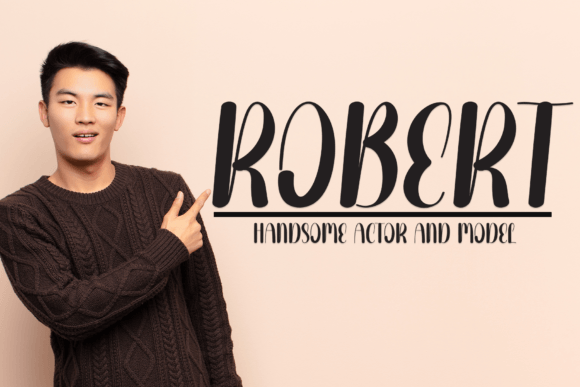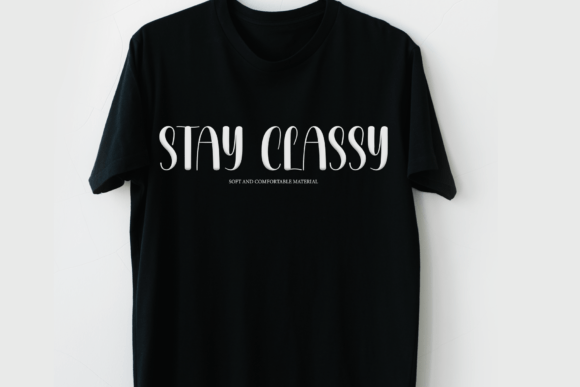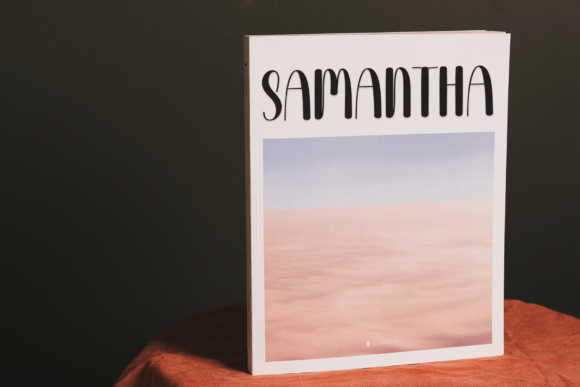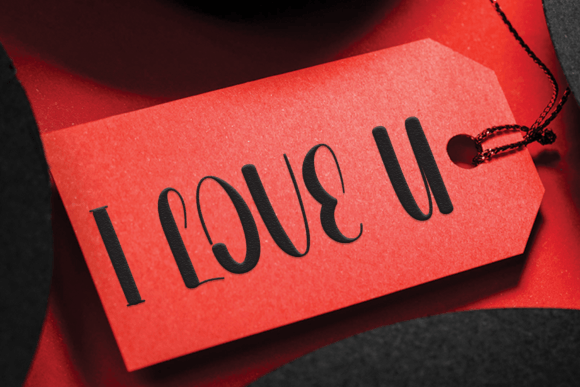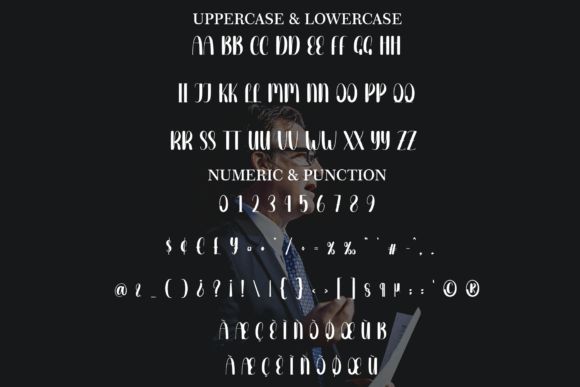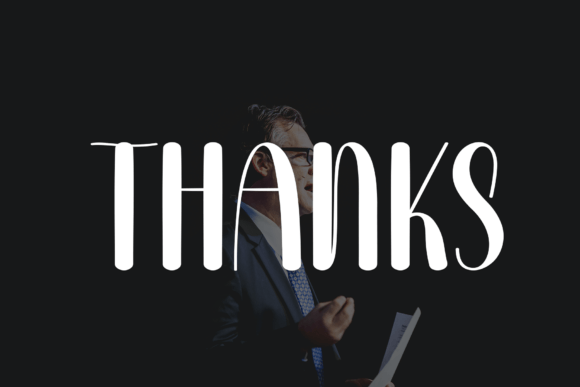
Introducing Black Easter Font: The Sweet and Friendly Handwritten Font for Your Design Needs
Are you looking for a font that can add a touch of sweetness and friendliness to your designs? Look no further than the Black Easter Font! This beautiful handwritten font is perfect for creating wedding invitations, cards, and other designs that require a lovely and personal touch.
What is Black Easter Font?
Black Easter is a sweet and friendly handwritten font that is designed to bring a sense of warmth and approachability to your designs. With its cute and fun style, this font is ideal for a variety of projects, from wedding invitations and cards to posters, flyers, and more.
Characteristics of Black Easter Font
So, what makes Black Easter Font so special? Here are some of its key characteristics:
- Handwritten style: Black Easter Font has a beautiful, handwritten style that gives it a personal and unique touch.
- Sweet and friendly: This font is designed to be sweet and friendly, making it perfect for designs that require a warm and approachable feel.
- Cute and fun: With its playful and fun style, Black Easter Font is ideal for designs that need to be engaging and eye-catching.
- Versatile: This font can be used for a wide range of projects, from wedding invitations and cards to posters, flyers, and more.
Uses for Black Easter Font
So, what can you use Black Easter Font for? Here are some ideas to get you started:
- Wedding invitations: This font is perfect for creating beautiful and elegant wedding invitations that will set the tone for your special day.
- Cards: Whether you’re creating birthday cards, thank-you cards, or get-well cards, Black Easter Font is a great choice.
- Posters and flyers: This font can be used to create eye-catching posters and flyers for events, promotions, and more.
- Social media graphics: Black Easter Font can be used to create engaging social media graphics, such as Facebook posts, Instagram stories, and more.
Why Choose Black Easter Font?
So, why should you choose Black Easter Font for your design needs? Here are some reasons:
- Unique and personal: This font has a unique and personal touch that will set your designs apart from the rest.
- Easy to read: Black Easter Font is easy to read, making it perfect for designs that require a clear and concise message.
- Customizable: This font can be customized to fit your design needs, including changing the color, size, and style.
- High-quality: Black Easter Font is a high-quality font that is designed to produce professional-looking results.
Tips for Using Black Easter Font
Here are some tips for using Black Easter Font:
- Use it with a clear and concise message: Black Easter Font is perfect for designs that require a clear and concise message.
- Experiment with different colors and styles: This font can be customized to fit your design needs, so don’t be afraid to experiment with different colors and styles.
- Pair it with other fonts: Black Easter Font can be paired with other fonts to create a unique and interesting design.
In conclusion, Black Easter Font is a sweet and friendly handwritten font that is perfect for adding a lovely touch to your designs. With its cute and fun style, this font is ideal for a variety of projects, from wedding invitations and cards to posters, flyers, and more. So why not give it a try and see how it can enhance your designs?